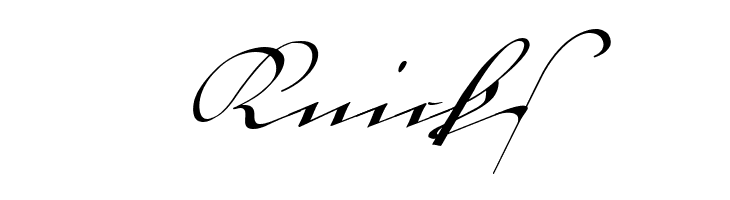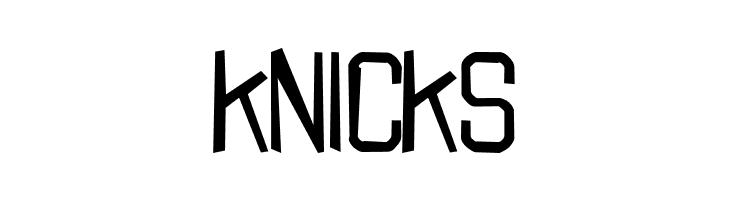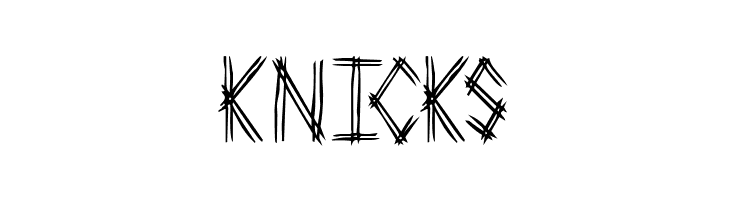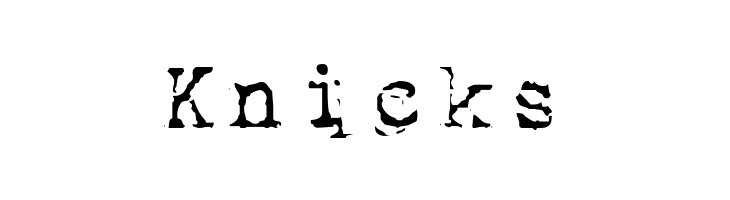
• 18th Century Kurrent Alternates
( Peter Wiegel - www.peter-wiegel.de )
An elegant, cursive script font inspired by 18th-century handwriting.
• 18th Century Kurrent Text
An elegant, flowing script with intricate flourishes, reminiscent of 18th-century handwriting.
• 18th Century Kurrent Text
An elegant, ornate script font inspired by 18th-century handwriting.
• 19 000 paarmaa
( Fonts by www.junkohanhero.com )
A bold, double-outlined decorative font with a playful and engaging style.
• 1942 report
( Fonts by Johan Holmdahl - www.free-typewriter-fonts.com )
A distressed, vintage typewriter-style font with a bold, textured appearance.
• 1980 Portable
• 2 Lines
A geometric, double-line font with a modern and structured appearance.
• 2 Prong Tree
( Fonts by uatype.faithweb.com - UnAuthorized Type )
An edgy, hand-drawn font with a rustic, organic appearance.
• 20.000 dollar bail
A bold, geometric font with sharp angles and a modern aesthetic.